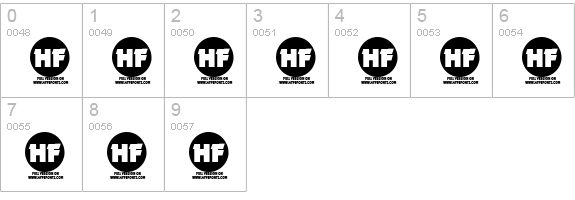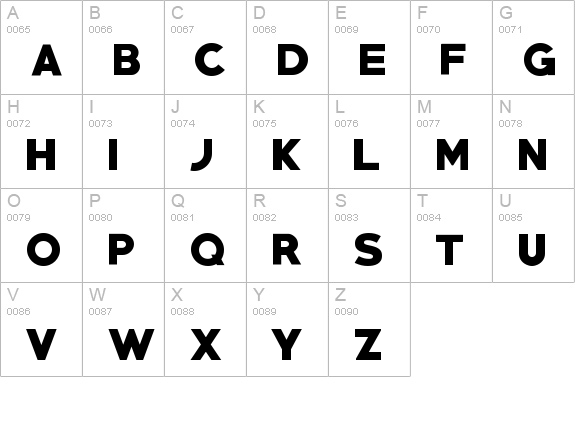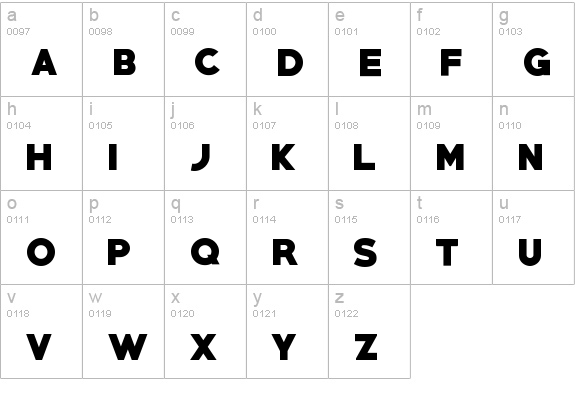
PRIMETIME Regular Font Details
PRIMETIME Regular is the standard, neutral variant in the PRIMETIME typeface family \xE2\x80\x94 well suited to general body text, paragraphs, and standard typographic work.
Introducing PRIMETIME Regular font, a sleek and elegant typeface that exudes sophistication and versatility. With its clean lines and well-balanced proportions, PRIMETIME Regular is perfect for any project that requires a touch of modernity and professionalism. Featuring a timeless design, this font effortlessly combines classic and contemporary elements, making it suitable for a wide range of applications. Whether it's for editorial design, branding, advertising, or web design, PRIMETIME Regular will elevate your projects to new heights. One of the best features of PRIMETIME Regular font is that it is available for free download at FontsMarket.com. This means that you can easily access and use this stunning typeface without any hassle. With just a few clicks, you can enhance your designs and create a lasting impression. The versatility of PRIMETIME Regular font is evident in its extensive character set, which includes uppercase and lowercase letters, numbers, punctuation marks, and special characters. This allows you to create visually appealing designs with ease and precision. Furthermore, PRIMETIME Regular font is highly legible and easy to read, making it suitable for both small and large text sizes. Its perfect balance between elegance and functionality ensures that your message will be conveyed effectively and effortlessly. So why wait? Take advantage of the opportunity to download PRIMETIME Regular font for free at FontsMarket.com and let your creativity soar. Whether you're a graphic designer, a web developer, or a creative enthusiast, this font will undoubtedly become an invaluable asset in your design toolkit.